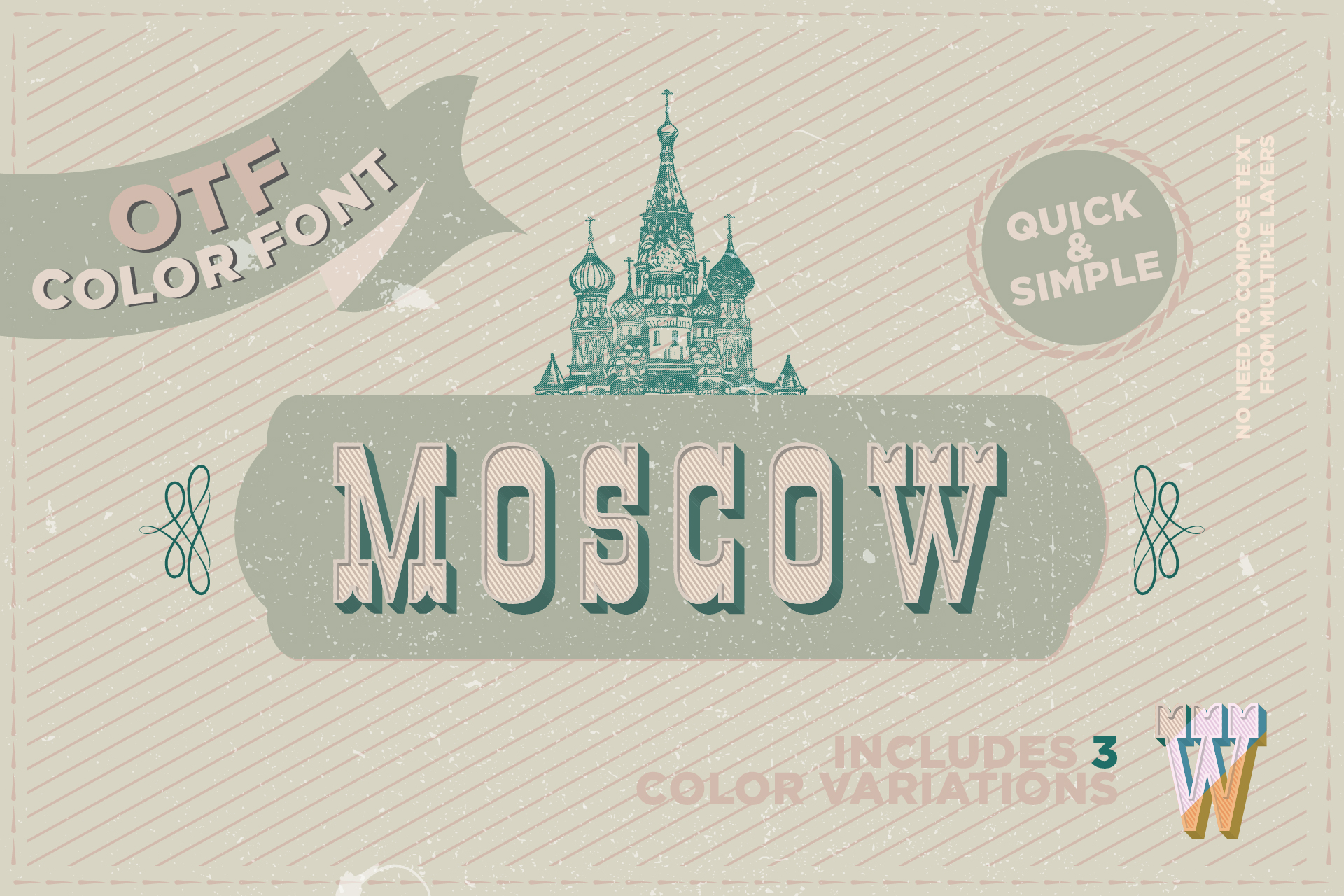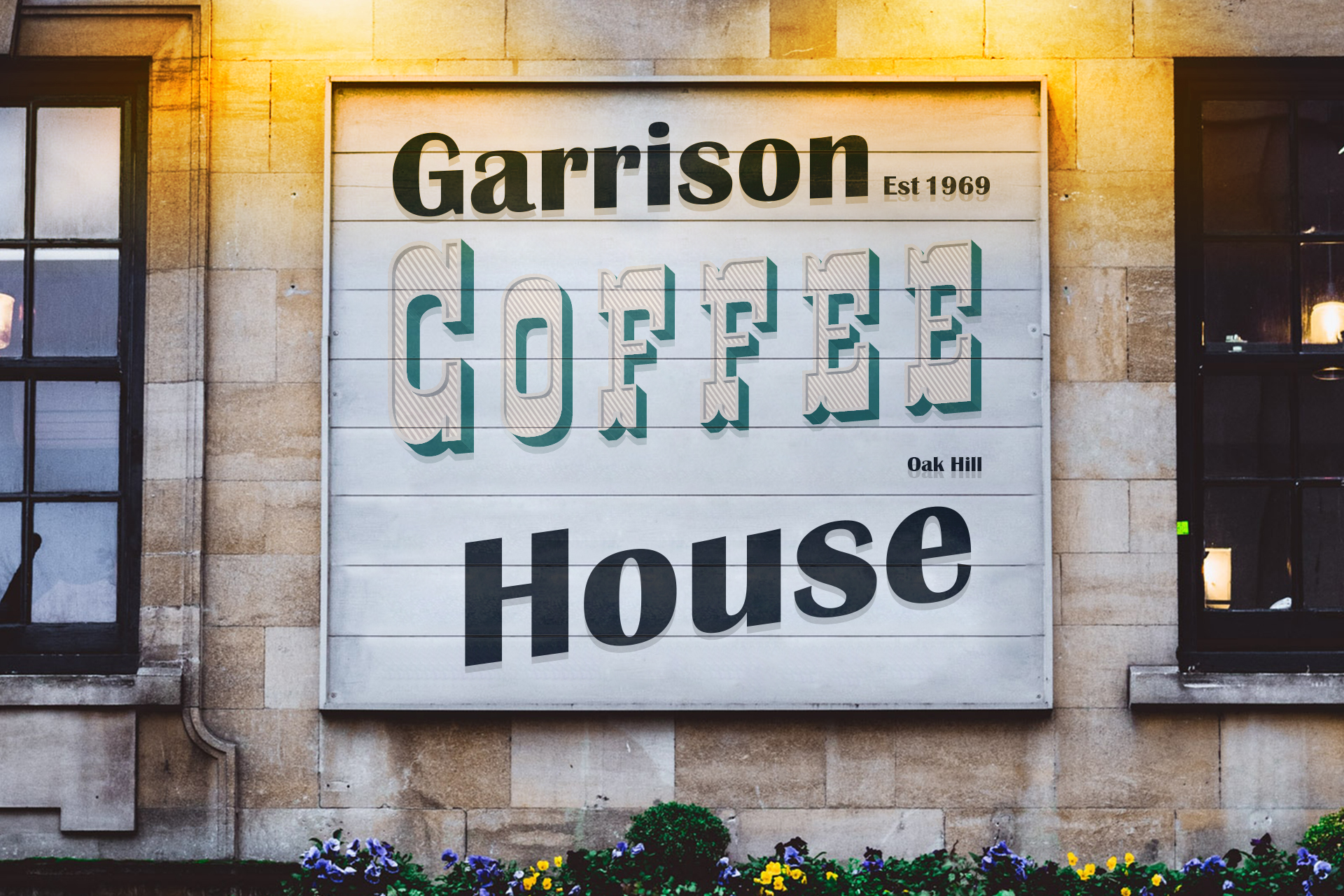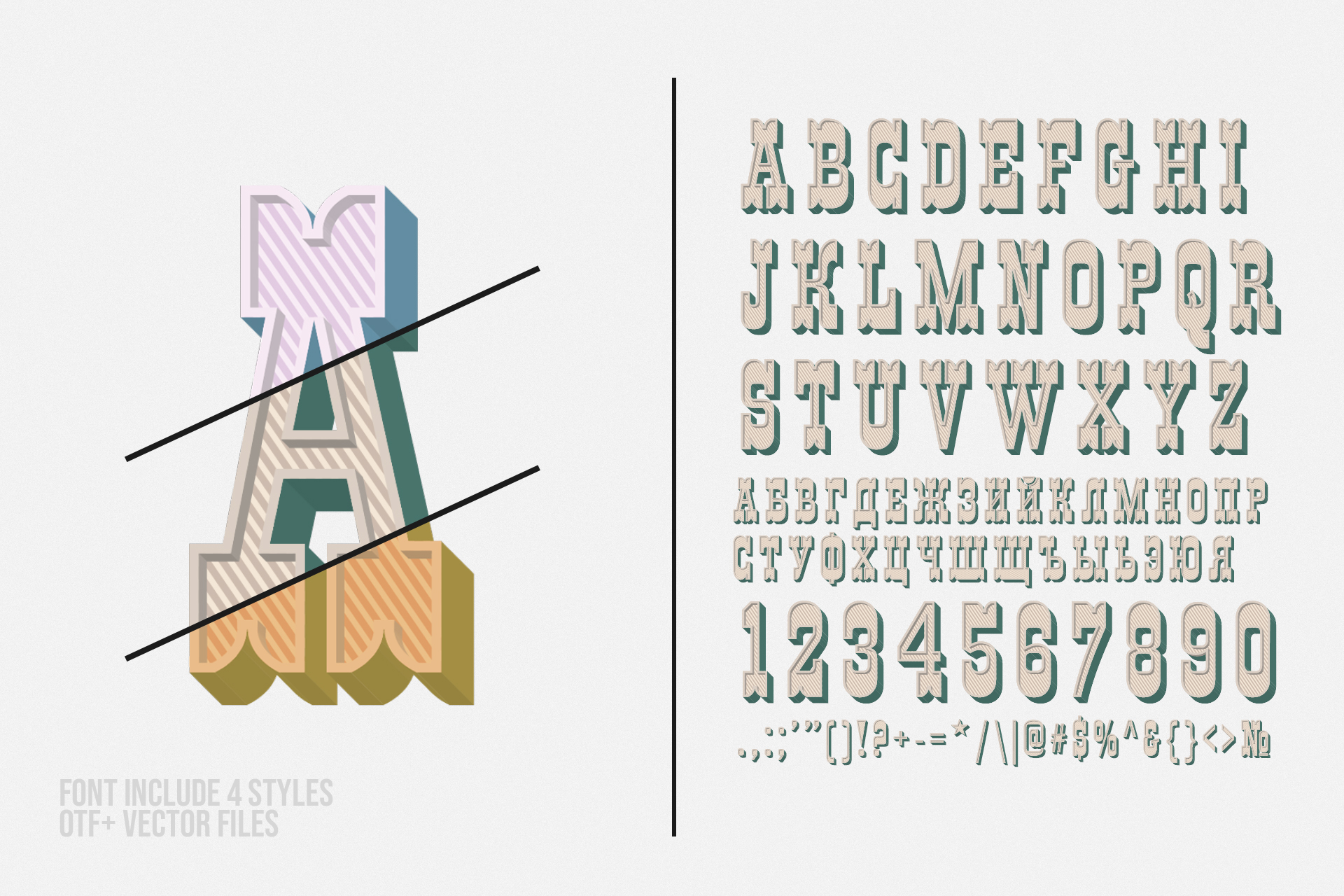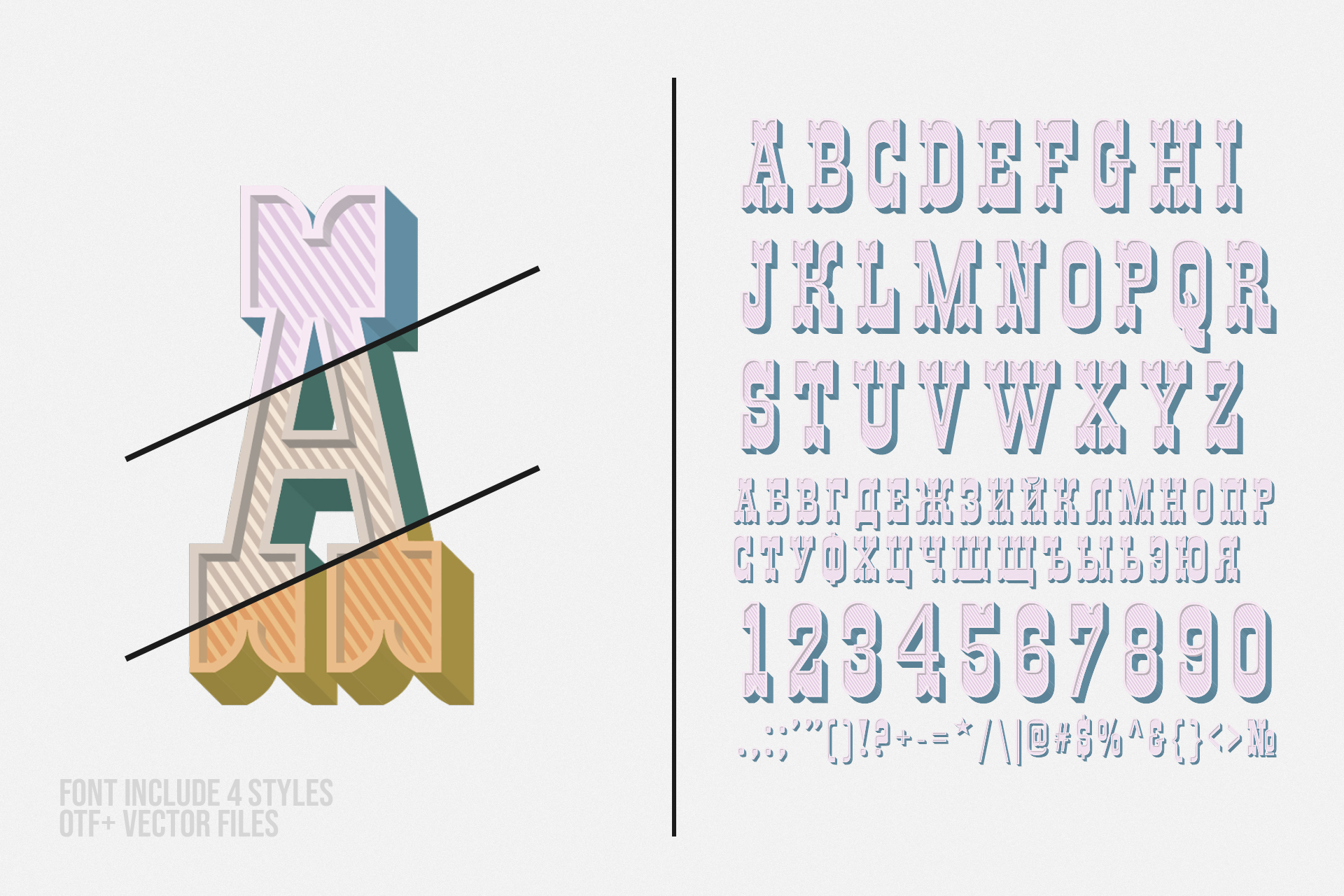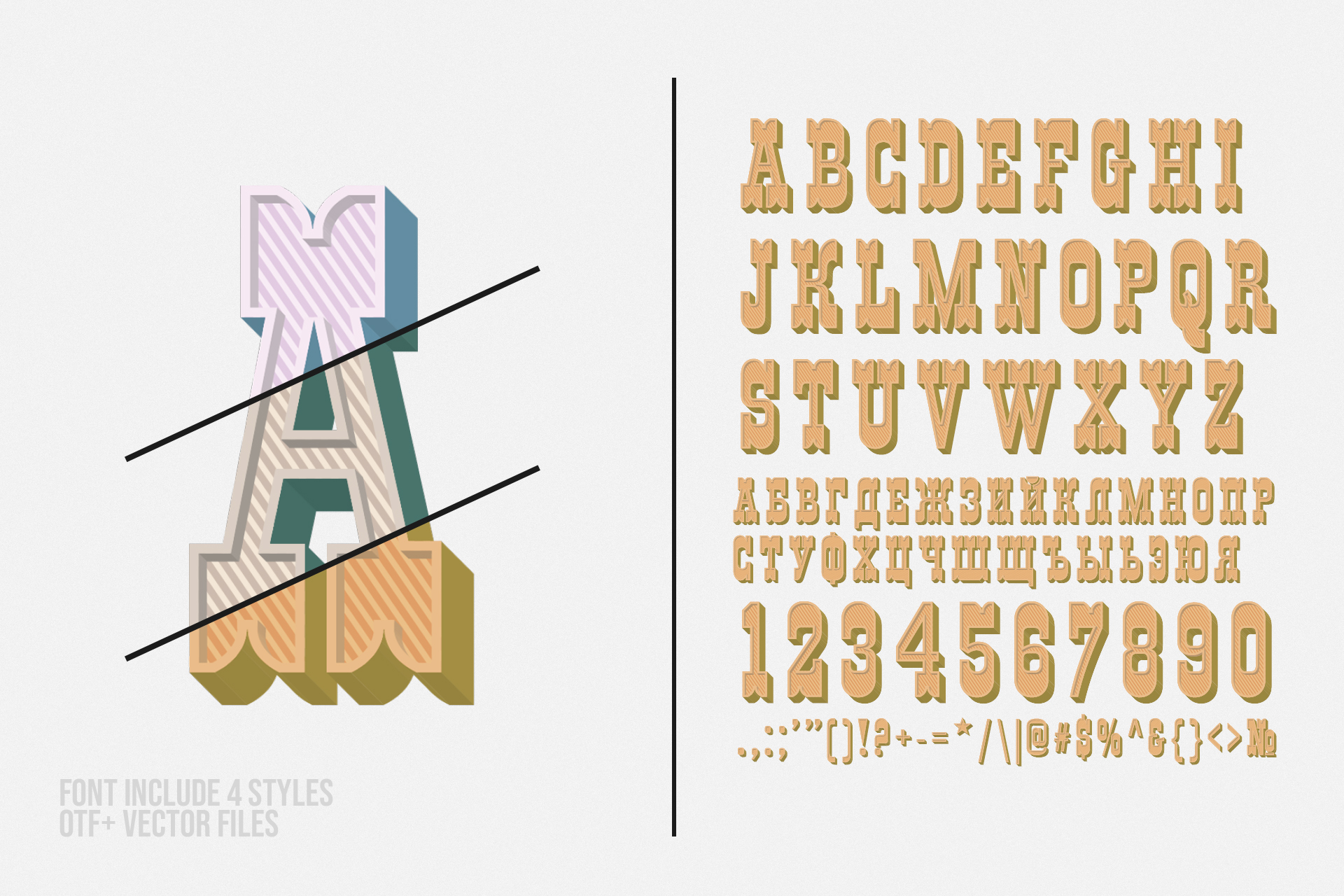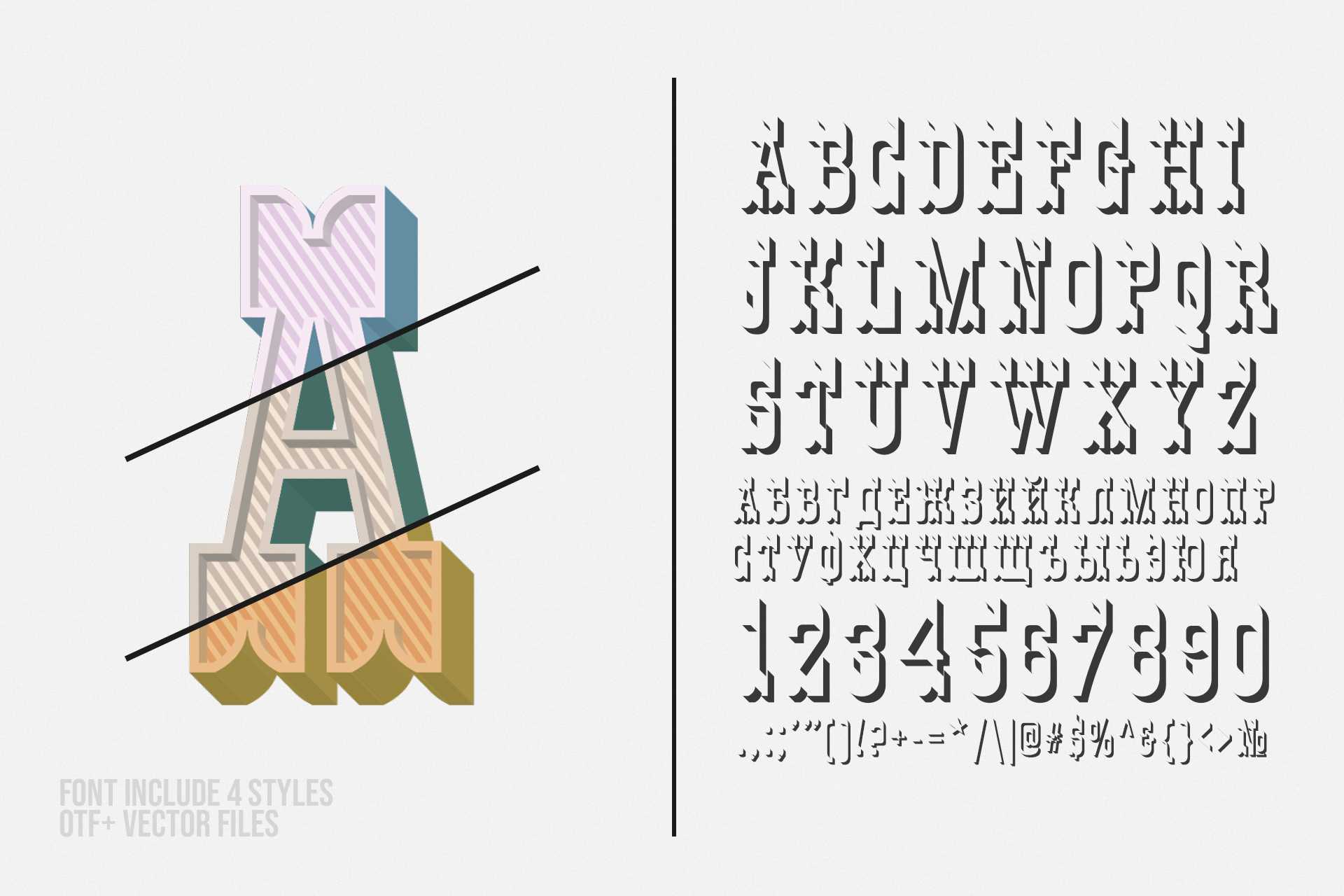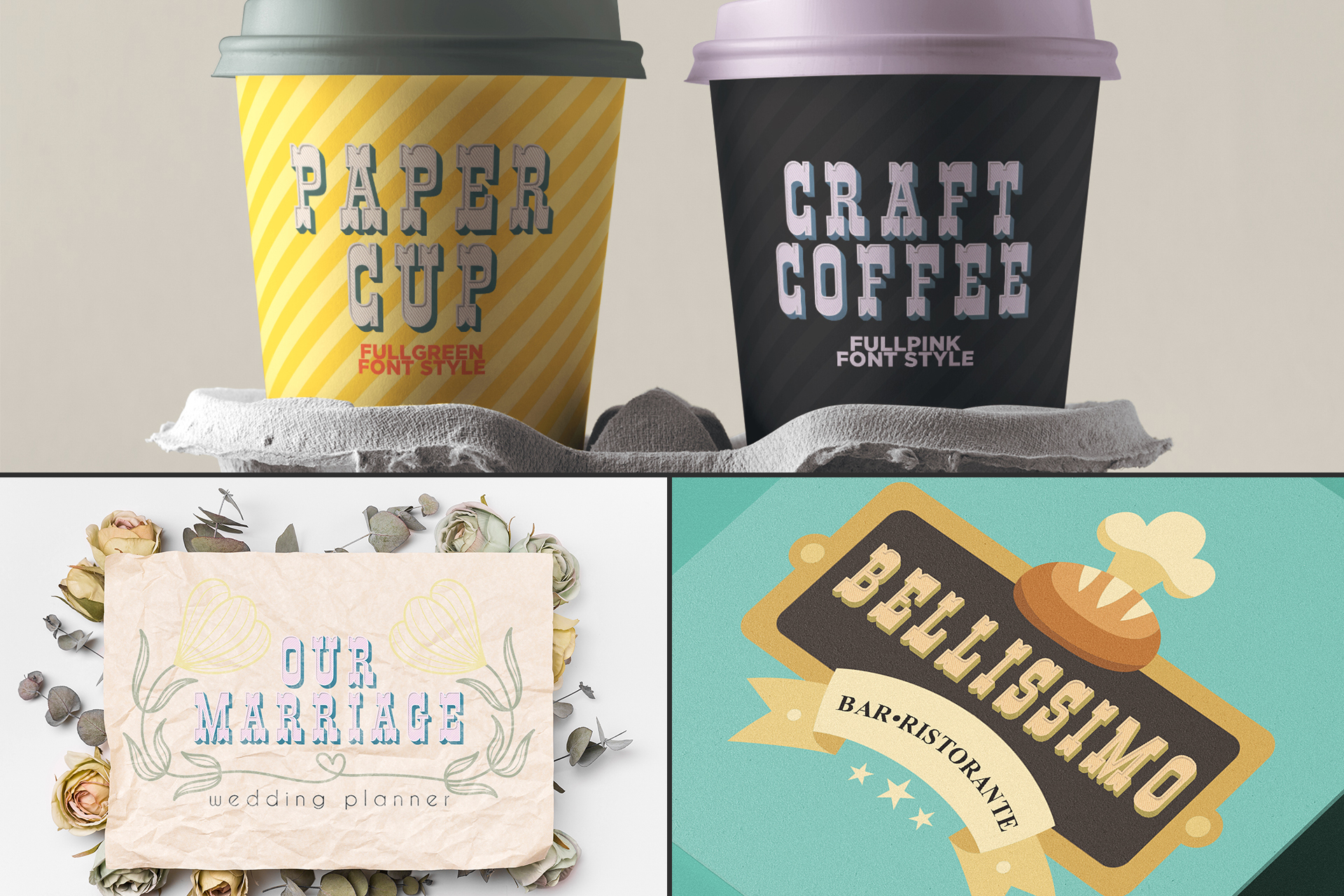
🌿 Introducing OTF color font - Moscow. 👑
This is the classic serif – clean lines, modern serifs, and just a touch of vintage. This font looks simple and elegant, the font is also very easy to read and suitable to be applied anywhere. The sharp serif combined with curves gives Moscow a fabulous, glamorous and bold look. This font is perfect for your collection for making designs that are elegant, unique. Very good for header texts, quote design, menu design, etc.
• All Uppercase Display, Numerals & Punctuation